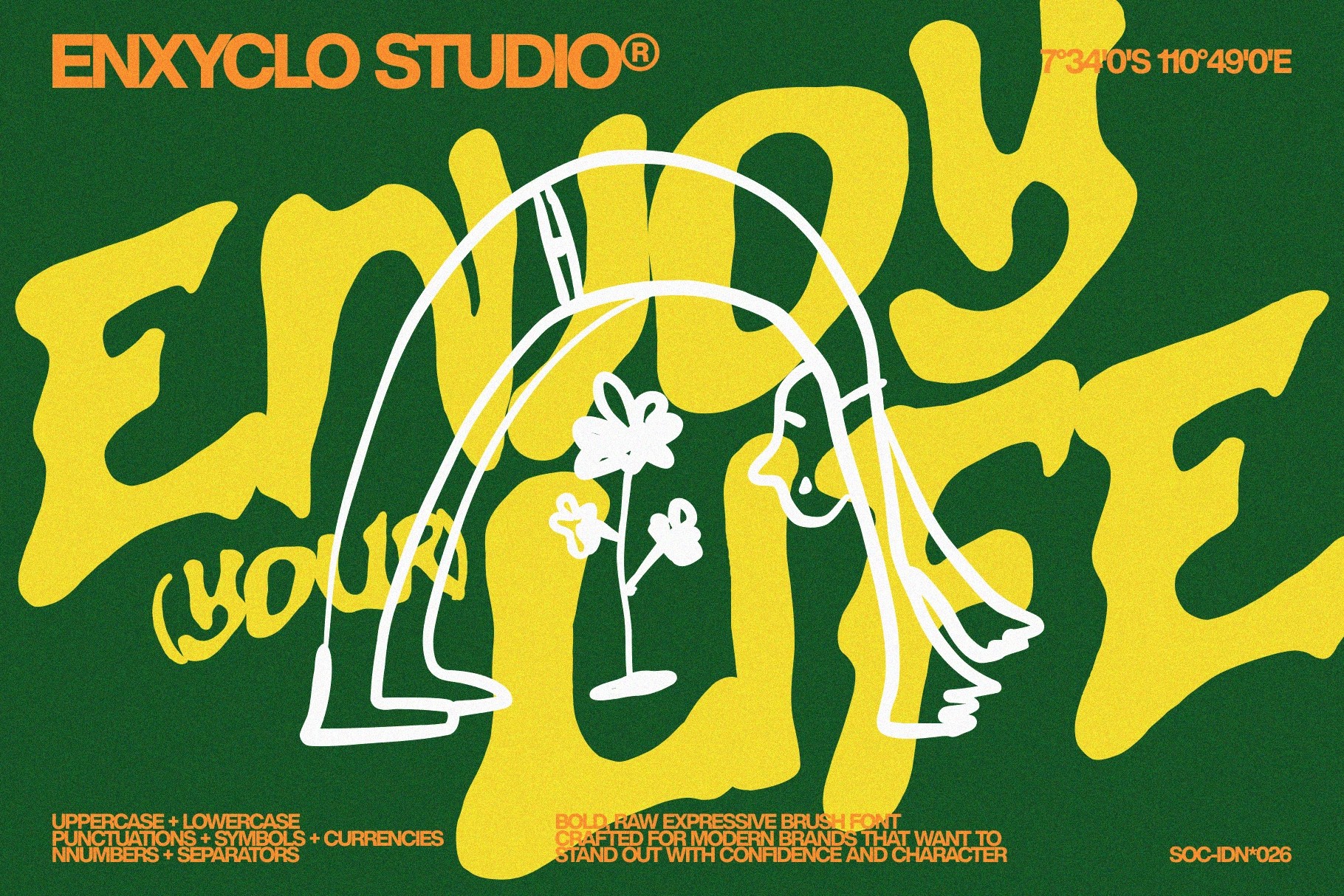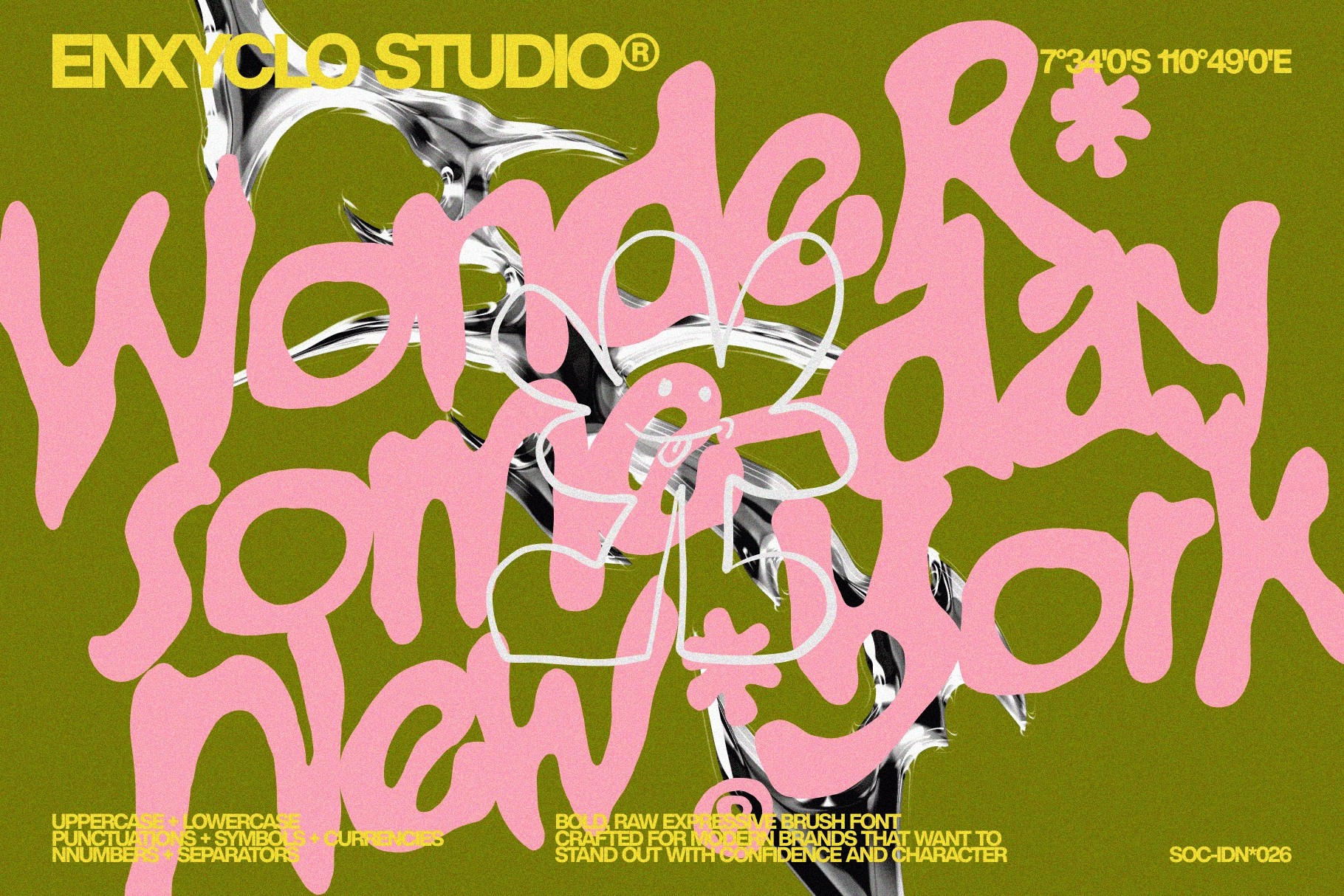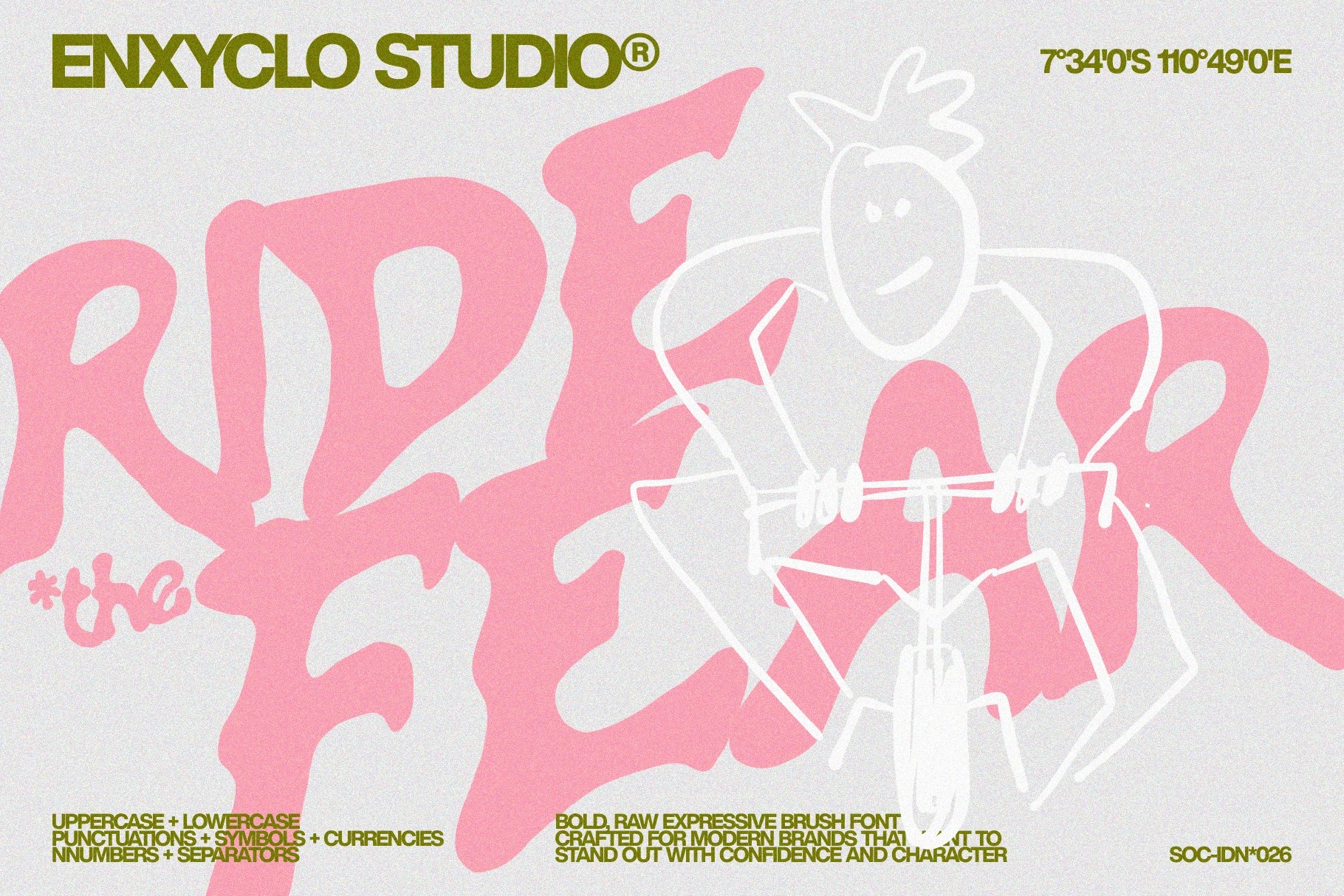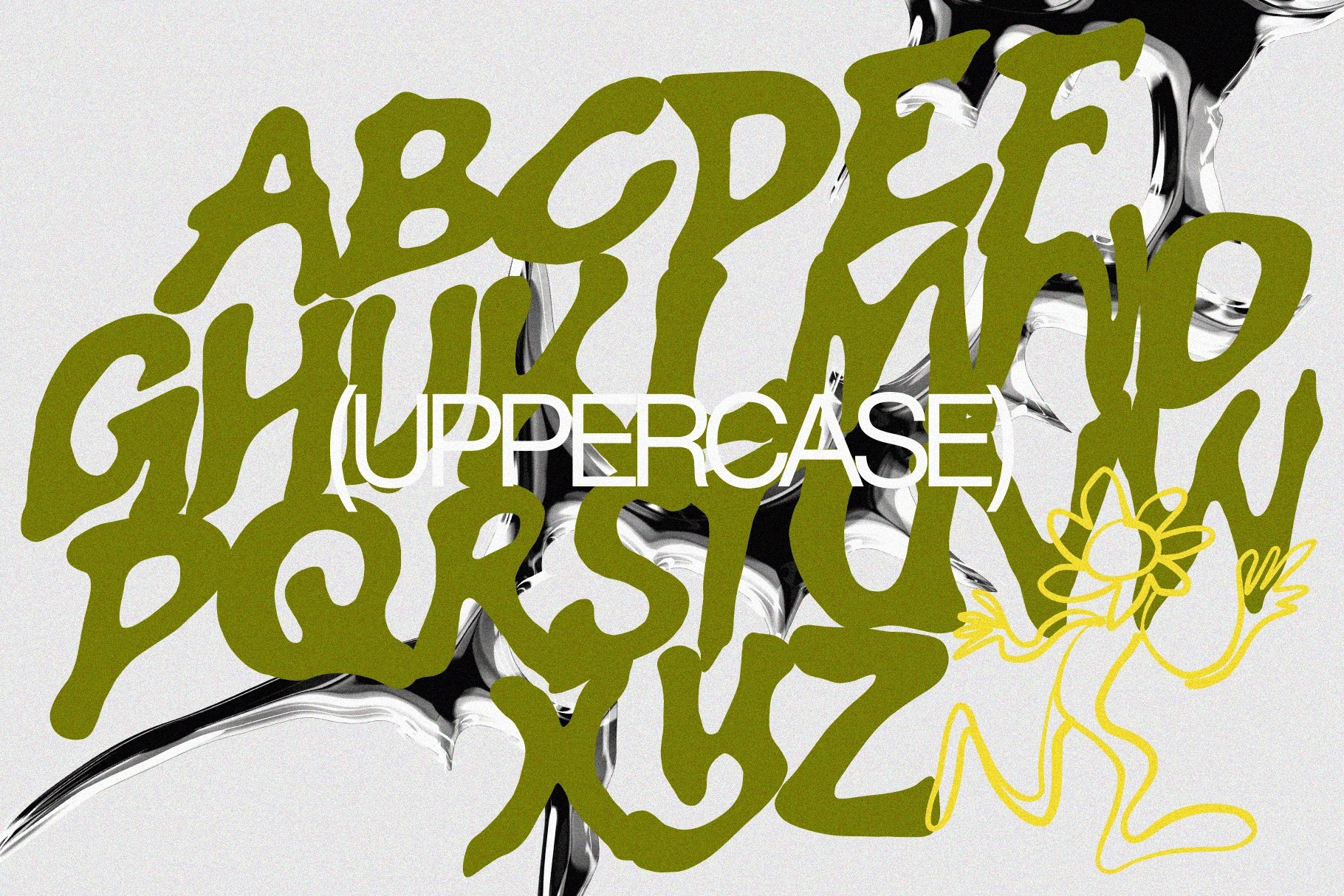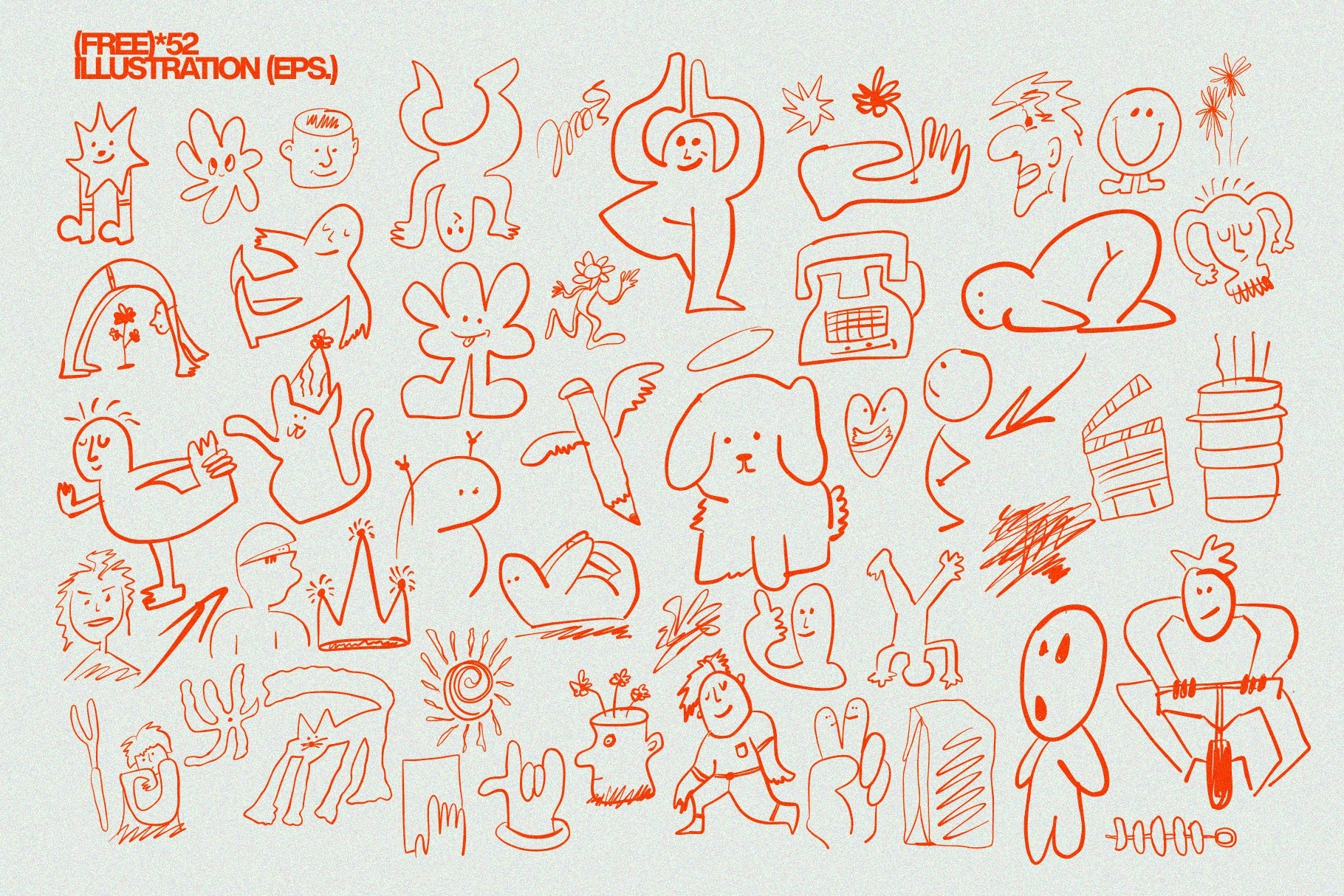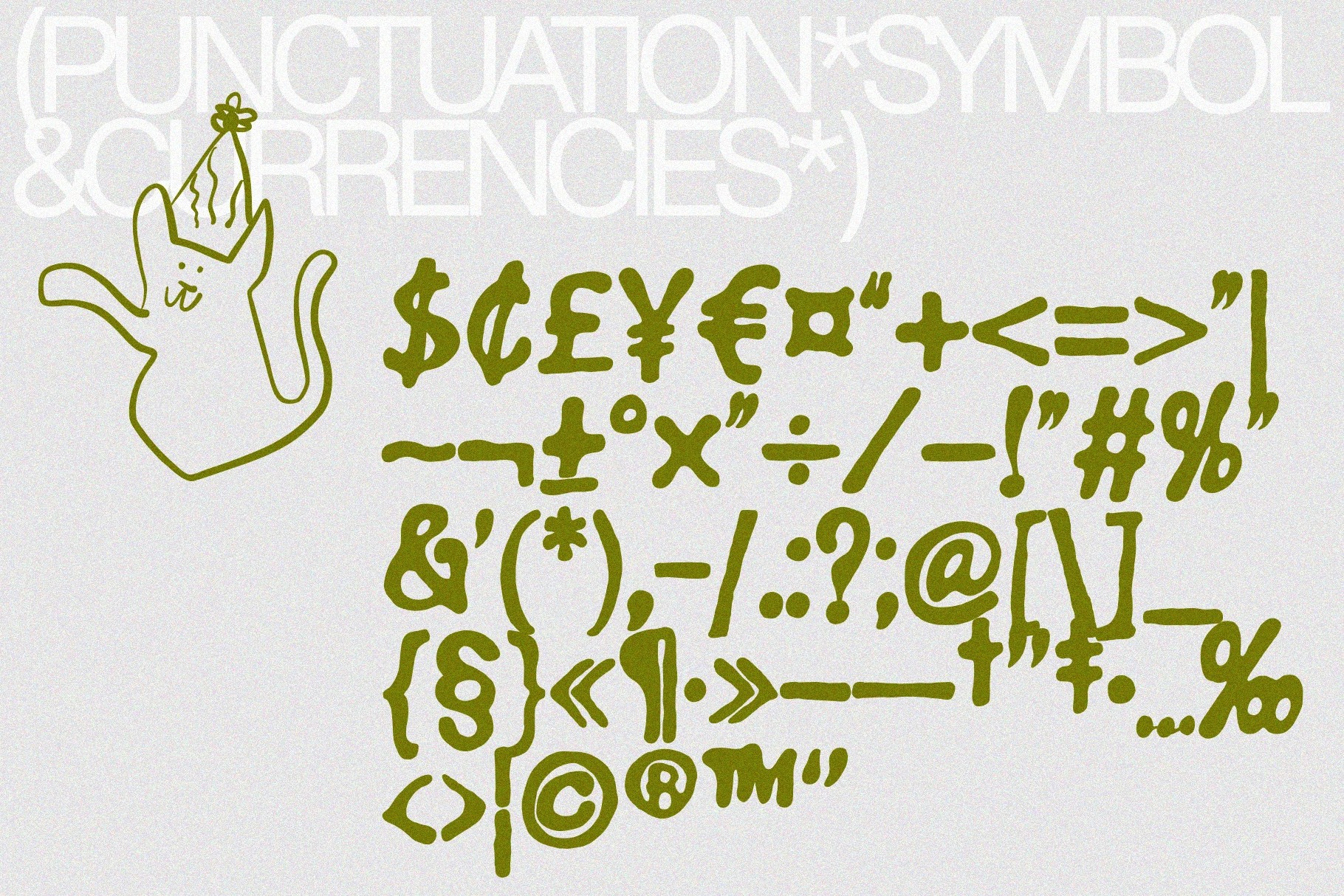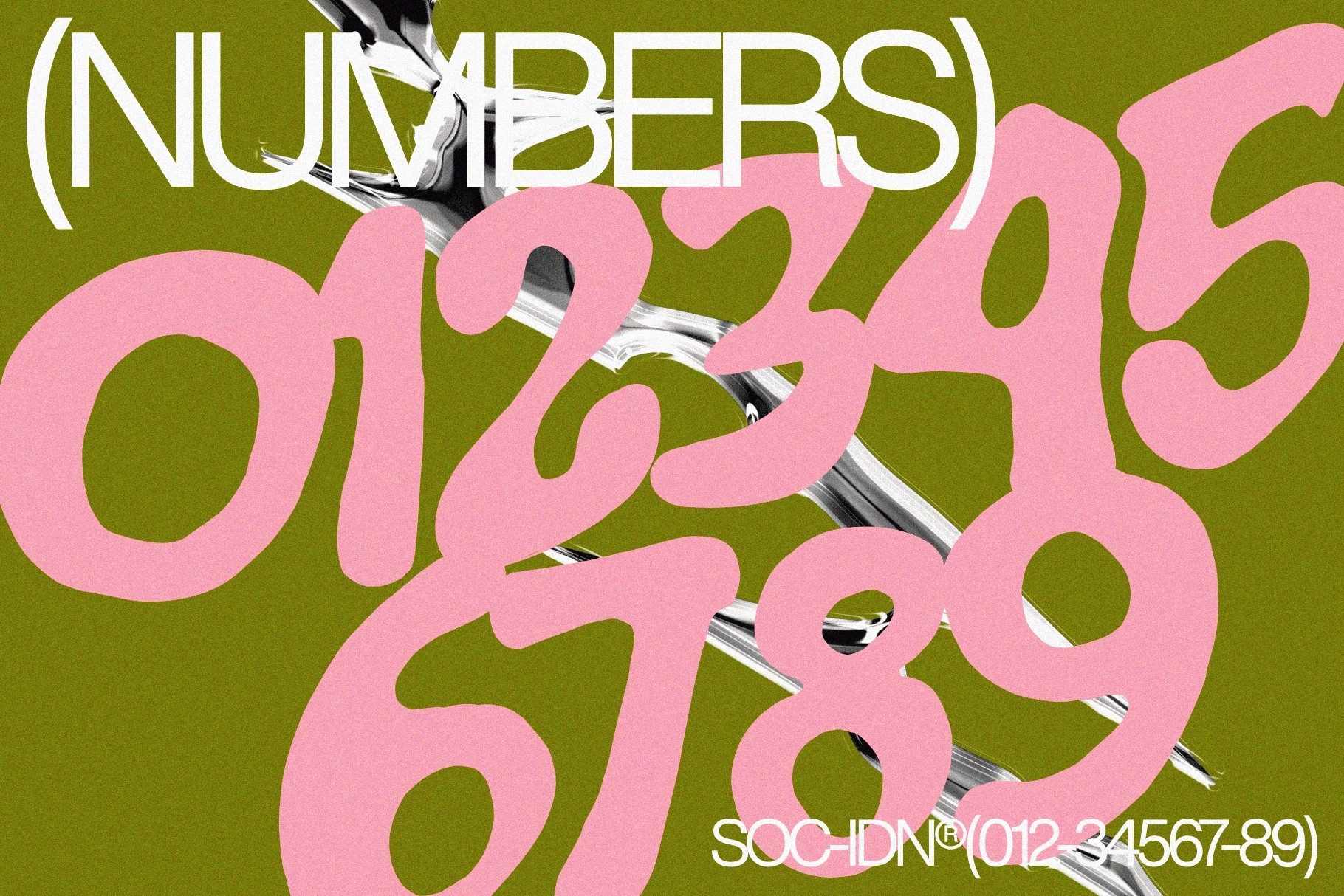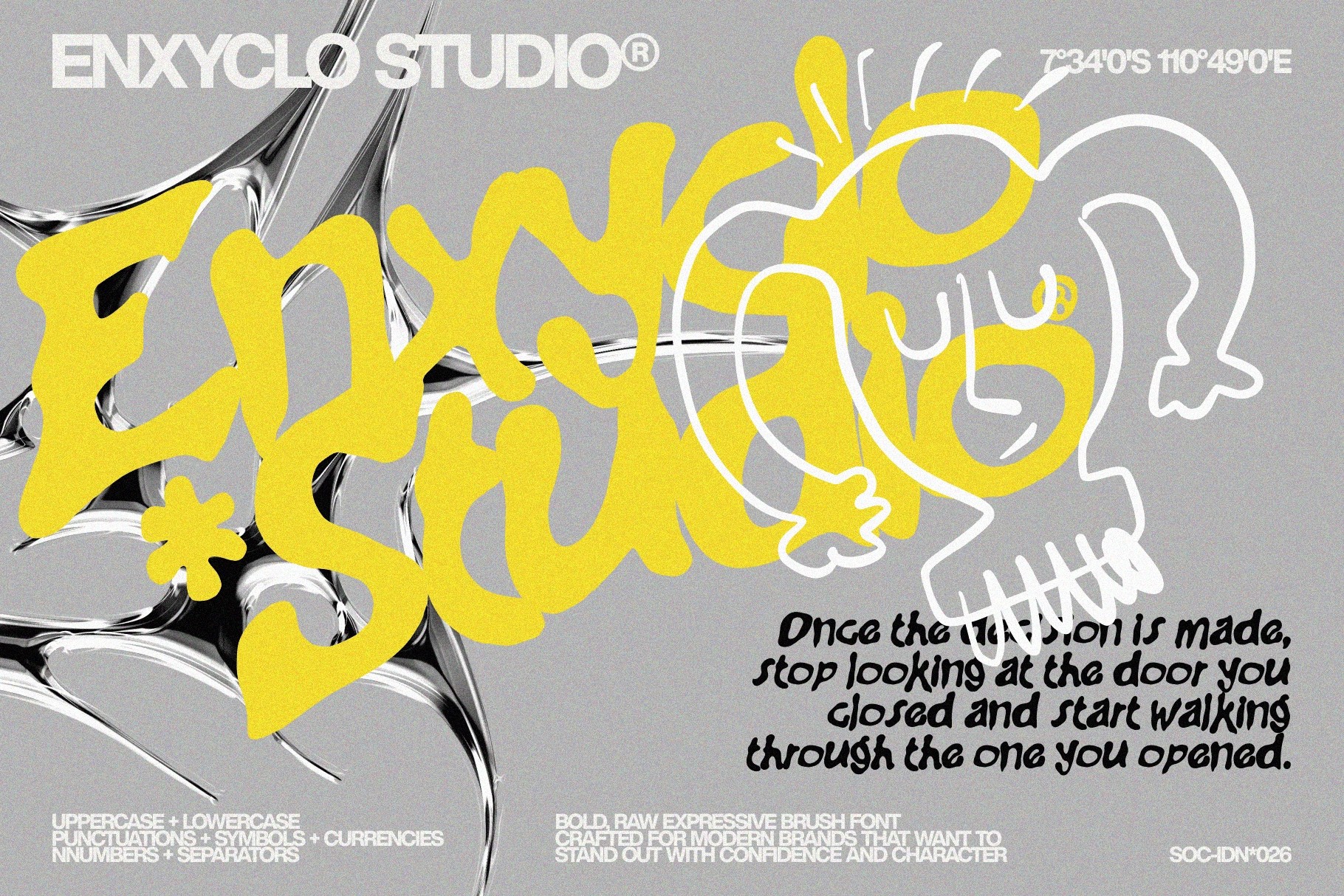
Gowny - Raw Brush Font
Gowny – Raw Brush Font is a bold and expressive brush typeface designed to bring raw energy and personality to modern design projects. Inspired by hand-painted strokes and textured lettering, Gowny blends rough brush aesthetics with a clean and balanced structure, creating a striking combination of authenticity and contemporary style. Its expressive shapes and dynamic strokes give every word a handcrafted feel while maintaining strong readability for impactful visual compositions.
Perfect for designers who want typography with attitude, Gowny works beautifully in logos, branding, posters, packaging, and social media graphics. The font’s fearless character and creative brush texture make it ideal for modern agencies, bold campaigns, and projects that require a strong visual voice. Whether used for expressive headlines or distinctive brand identities, Gowny adds a raw, confident, and artistic touch to every design.
- Uppercase & Lowercase Characters
- Punctuation Marks
- Symbols & Currency Characters
- Raw Hand-Painted Brush Style